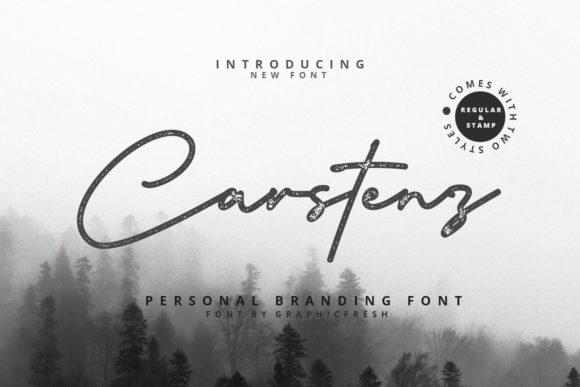
The Carstenz Font: Elevate Your Designs with a Touch of Vintage Elegance
I’ll never forget the time I was working on a branding project for a luxury wedding planner. My client wanted a sophisticated, high-end feel, but I was struggling to find the perfect font to capture that essence. That’s when I stumbled upon the Carstenz font, and it completely transformed my design. In this article, I’ll share my experience with this beautiful modern script font and provide a comprehensive guide on how to make the most of its stunning features.
An Honest Review of Carstenz Font
- 💫 The elegant, cursive script style that adds a touch of sophistication to any design
- ✅ The versatility of the font, which comes in regular and stamp styles
- 📈 The perfect balance of modern and vintage elements, making it suitable for a wide range of design projects
- ⚠️ Some users might find the font a bit too ornate for certain projects, such as minimalist designs
- 🤔 The stamp style can be a bit overpowering if not used thoughtfully
A Practical Guide to Using Carstenz Font
- Experiment with the OpenType features, such as stylistic alternates and glyphs, to add more personality to your text
The Story Behind Carstenz Font
The Carstenz font was designed by a talented typographer who drew inspiration from classic, vintage scripts. The goal was to create a modern font that would evoke a sense of nostalgia and sophistication. The result is a stunning script font that can elevate any design project.
| Font Name | Carstenz Font |
| Author | Graphicfresh |
| What is the Carstenz font best suited for? | The Carstenz font is perfect for editorial, professional, and design projects that require a touch of vintage elegance, such as business cards, portfolios, invitations, and branding endeavors. |